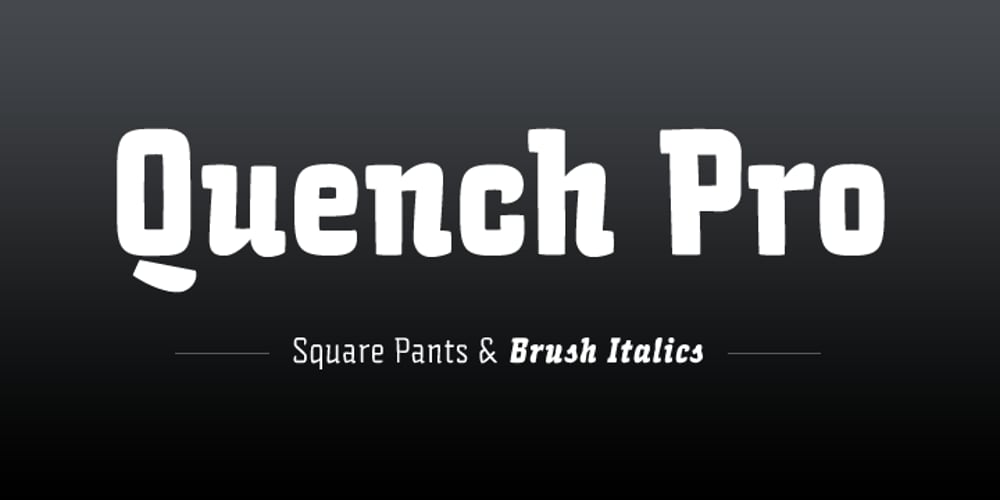
Quench Font Family was designed by Hannes von Döhren and published by Linotype. Quench contains 4 styles and family package options. Quench is a fun and unique typeface from designer Hannes von Döhren. It is unmistakably characterized by its strong contrast of inside and outside forms. The counters are nearly straight and have many right angles. Conversely, the outside curves are smooth and rounded making them soft and almost bubbly. The italics have juicy curves reminiscent of brush lettering. Used together or individually, the four weights and styles can be used for a wide variety of projects including magazines, advertising, logos, and branding.